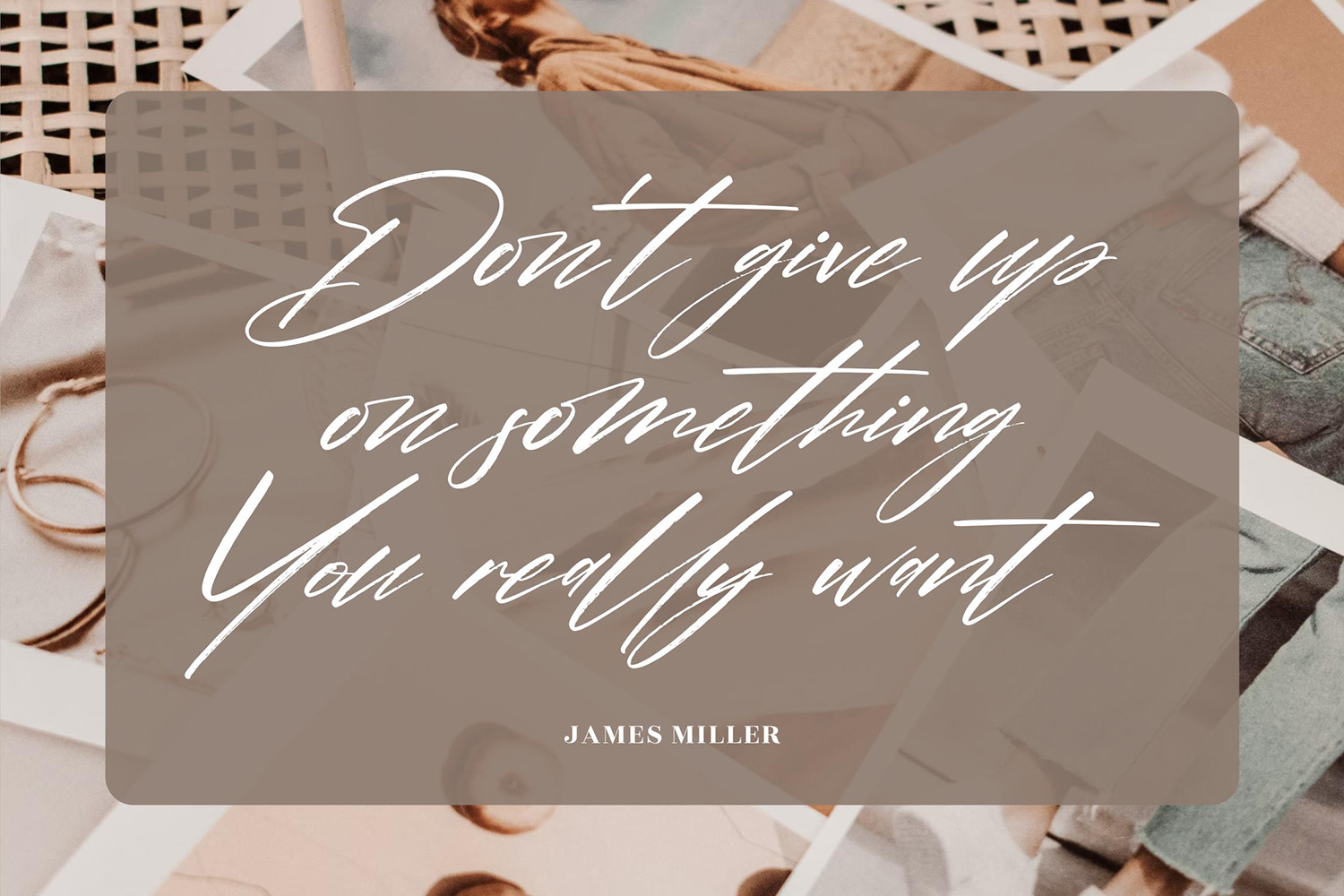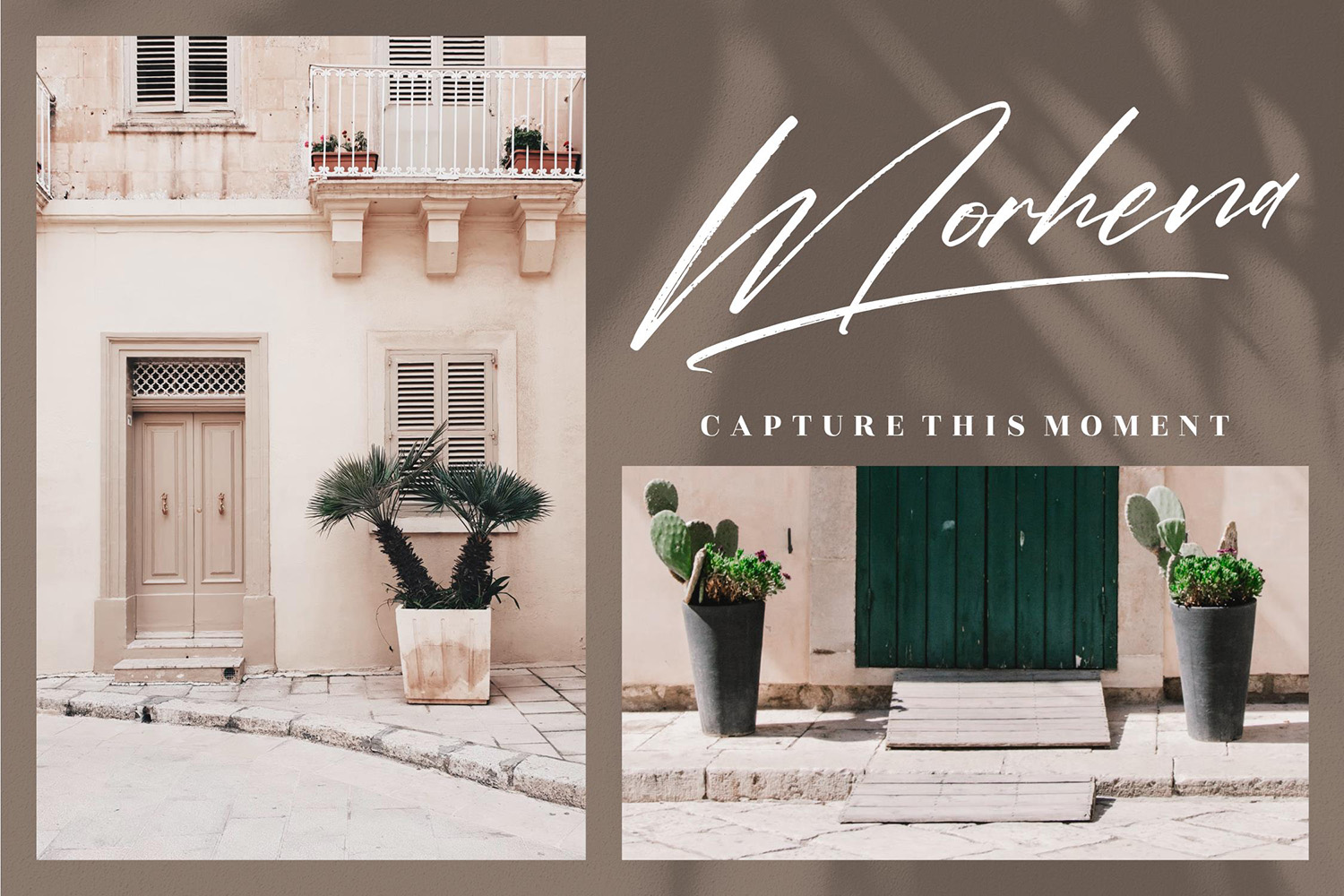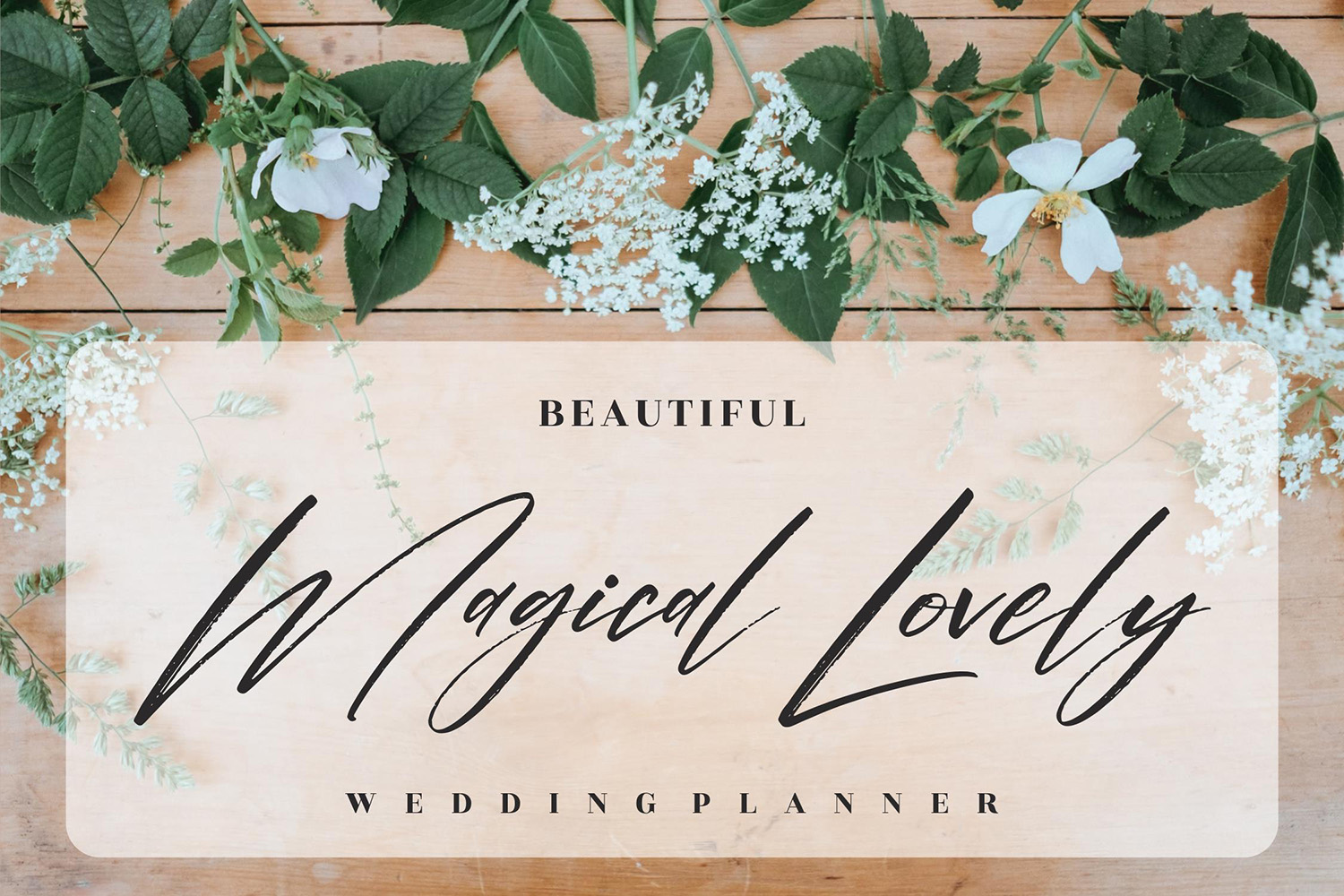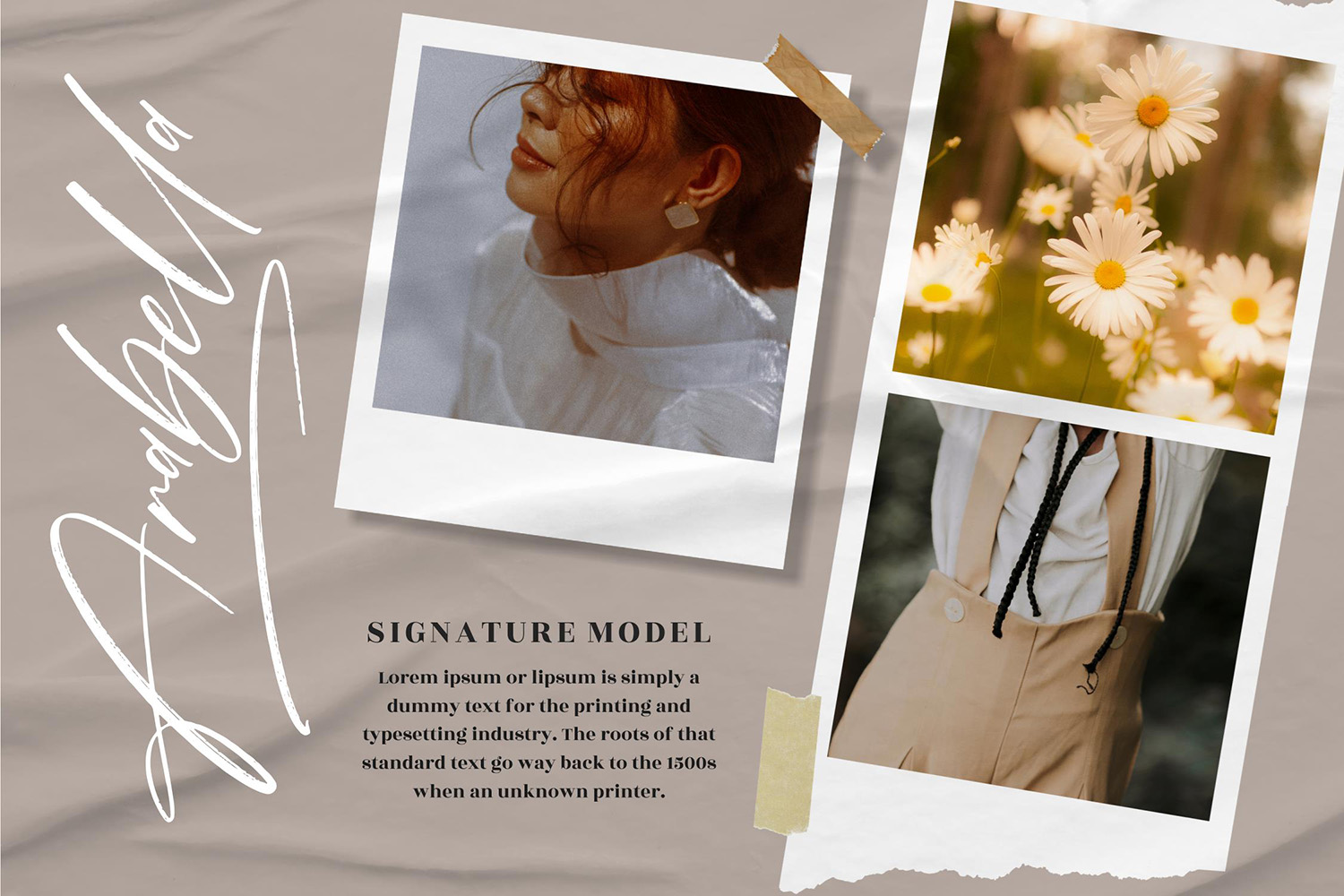
Pantherdam Signature Free Font
Pantherdam Signature Free Font, an elegant calligraphy typeface, features characters that gracefully dance along the baseline. Incorporating this font into your design project will infuse a touch of luxury and sophistication. This free typeface was designed by a talentedΒ Letternity Studio. If you like it don’t forget to check out the full version.